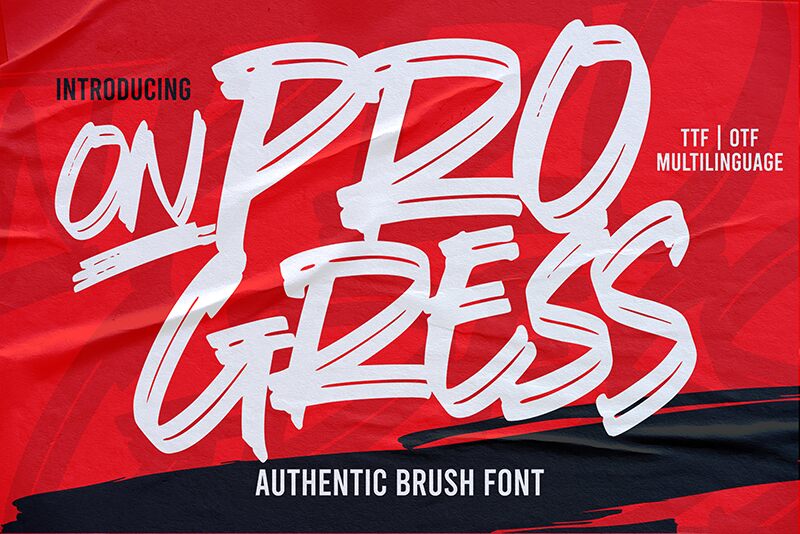
on Progress
Experience the dynamic fluidity of On Progress, a font that captures the essence of spontaneity and modernity. Created by Gassstype, this authentic brush font boasts a textured appearance and an inherent sense of dramatic movement, as if each stroke were penned in a burst of inspiration. The contemporary style of On Progress makes it an exceptional choice for projects that demand a touch of personality and flair.
On Progress is not just another brush script; it's designed to infuse your creative endeavors with an air of authenticity and fun. Its suitability stretches across various applications—from eye-catching labels to stylish posters, from bespoke branding to heartfelt greeting cards. Whether you're designing for digital media or crafting handmade pieces, this font ensures your work stands out with its cool characteristics and natural look. Embrace the artistry On Progress brings to your design toolkit and watch as your creative projects come alive with its unique charm.